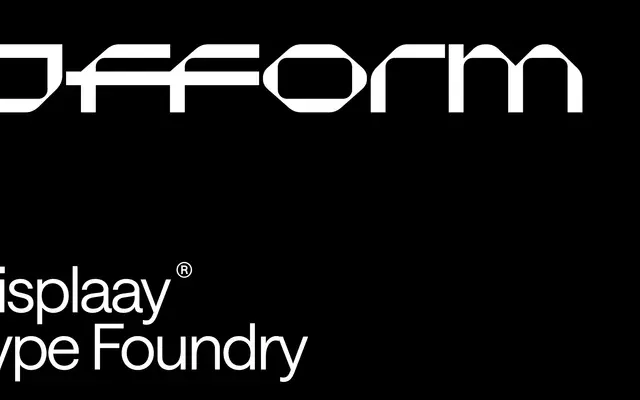
Ofform
Displaay Type Foundry · Marek Suchánek, Kristína Jandová, Martin Vácha · 2020
A modular display typeface built on a 7×5 grid, originating from lettering inspired by folded textile fabric for a 3D fashion brand.
Designed by Marek Suchánek, Kristína Jandová and Martin Vácha and first sketched in November 2019, the typeface uses a strict 7×5 grid with equal uppercase and lowercase heights, punctuated by thin contrast strokes in select glyphs and diacritics. The family spans just two styles, Regular and Italic, supported by eight stylistic sets and a variable slant axis. Its visual language is oriented towards sci-fi, technology and cyberpunk contexts.
A grid-based modular typeface built on a 7×5 grid with uniform cap and x-heights, designed for sci-fi and futuristic applications. Its geometric, constructed letterforms place it firmly in the display category with a modular subcategory.